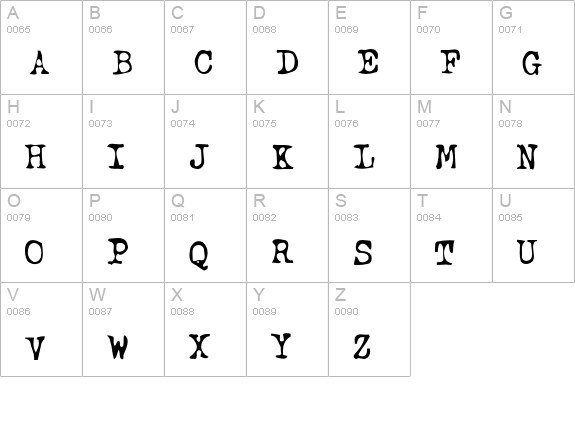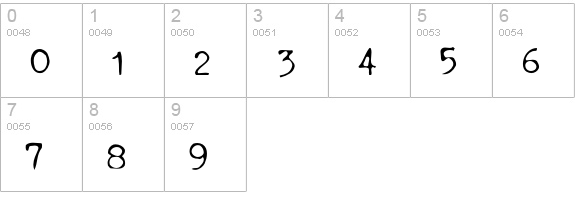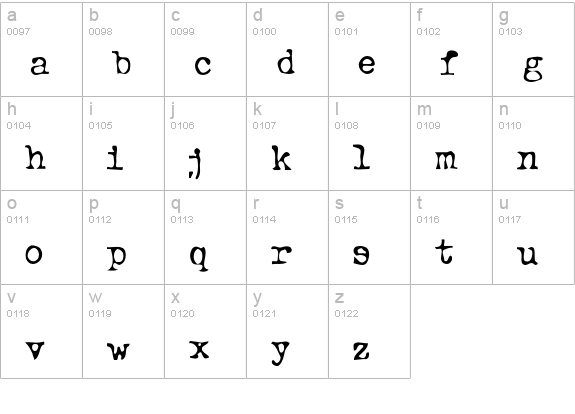
TypewriterOldstyle Font Details
TypewriterOldstyle font is a timeless and classic typeface that takes us back to the golden age of typewriters. Its elegant and vintage design captures the essence of old-fashioned writing, making it a perfect choice for projects that require a touch of nostalgia. With its carefully crafted letterforms and distinct typewriter-like characters, TypewriterOldstyle font brings a unique charm to any design. Whether you're creating invitations, posters, or even digital content, this font will add a touch of authenticity and character to your work. What makes TypewriterOldstyle font even more appealing is that it is freely available to download at FontsMarket.com. This means that you can easily access and utilize this beautiful typeface without any cost or hassle. The team at FontsMarket.com believes in making high-quality fonts accessible to everyone, and TypewriterOldstyle font is no exception. So, if you're looking to add a touch of vintage flair to your next project, look no further than TypewriterOldstyle font. Download it for free at FontsMarket.com and let its timeless beauty elevate your designs to a whole new level.